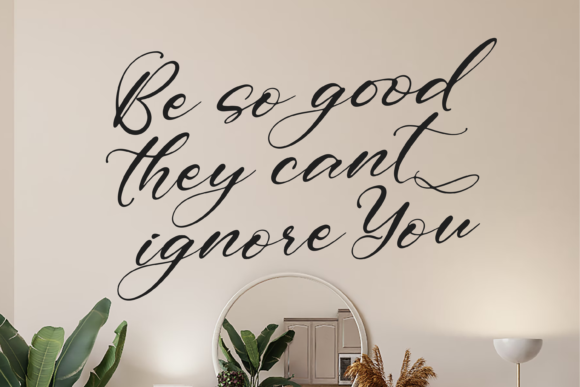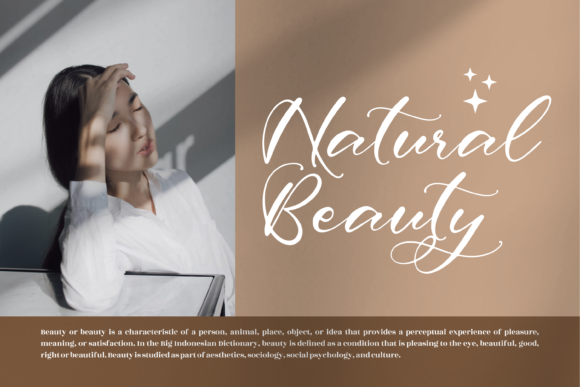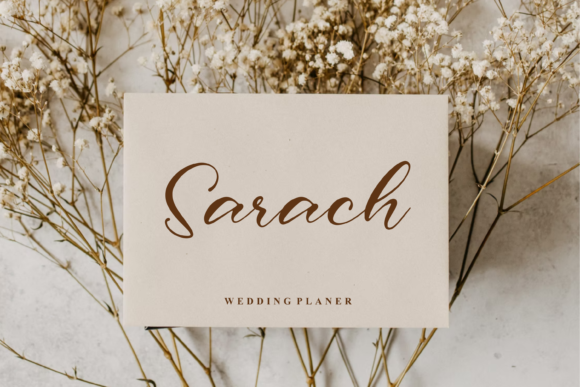
Introduction to Dettina Girls Font
Dettina Girls is a lovely and delicate script font that exudes elegance and class.
This font was particularly crafted for those who need a beautiful and refreshing look to their designs Dettina Girls is PUA encoded which means you can access all glyphs and swashes with ease.
Key Features of Dettina Girls Font
Why Choose Dettina Girls Font?
Dettina Girls Font offers exceptional quality and versatility, making it a valuable addition to your design toolkit. Whether you’re creating for personal projects or commercial use, Dettina Girls Font delivers professional results.